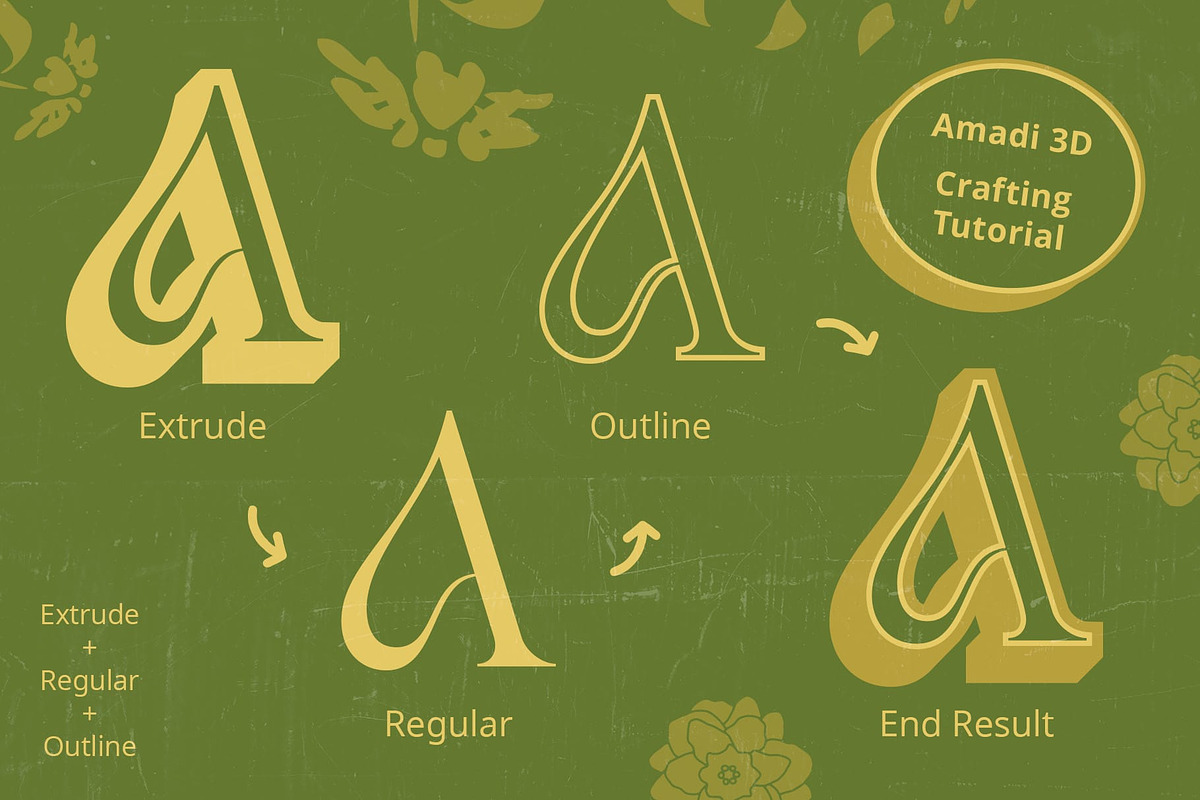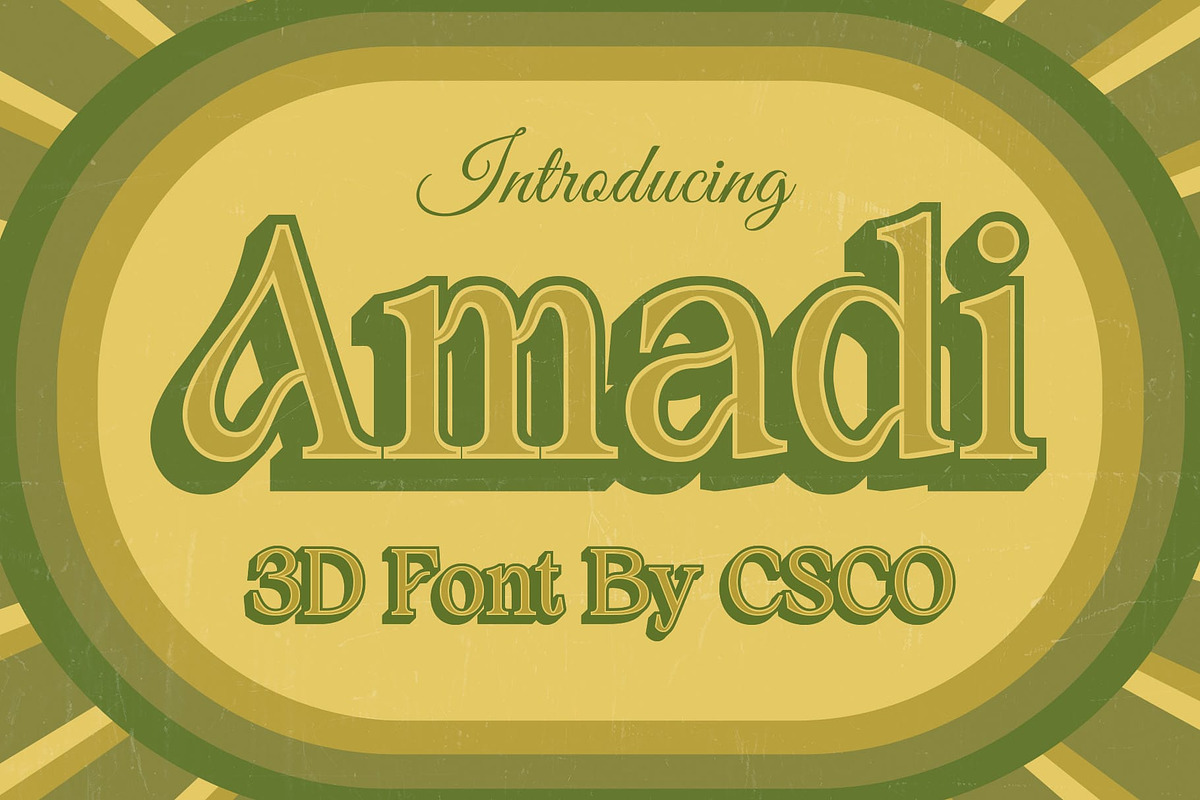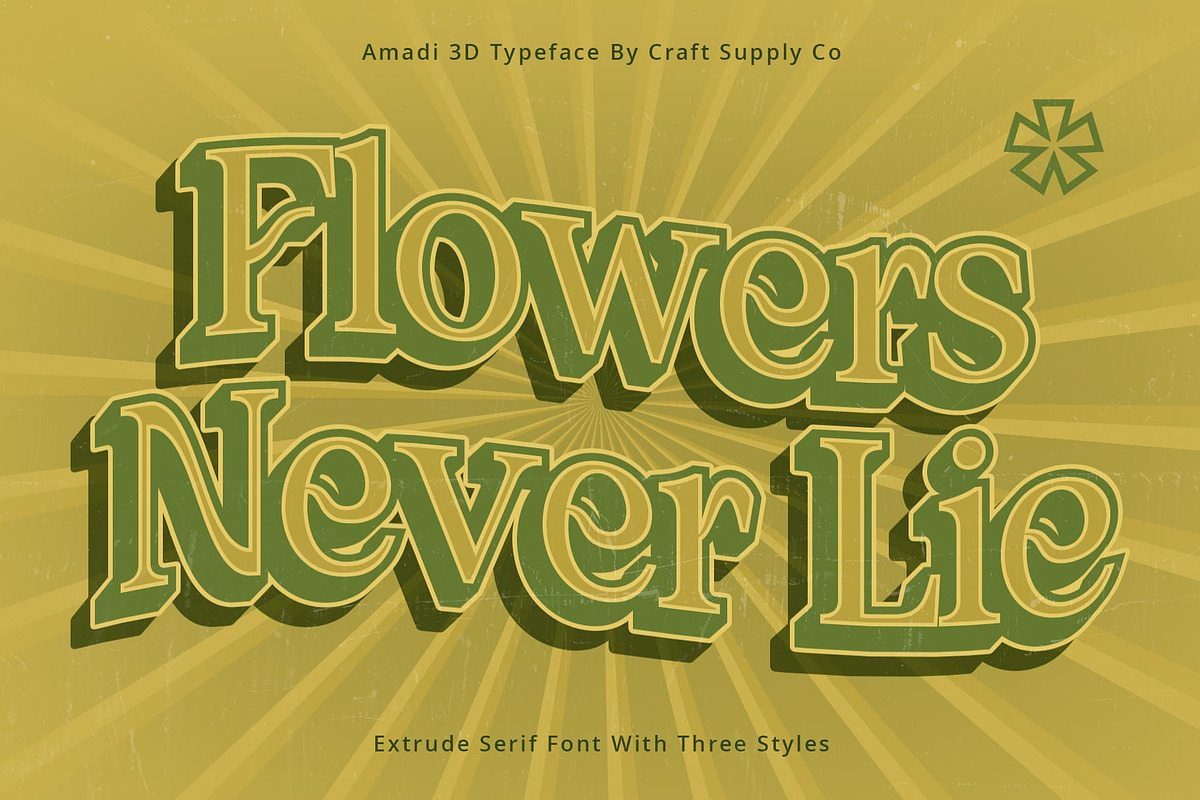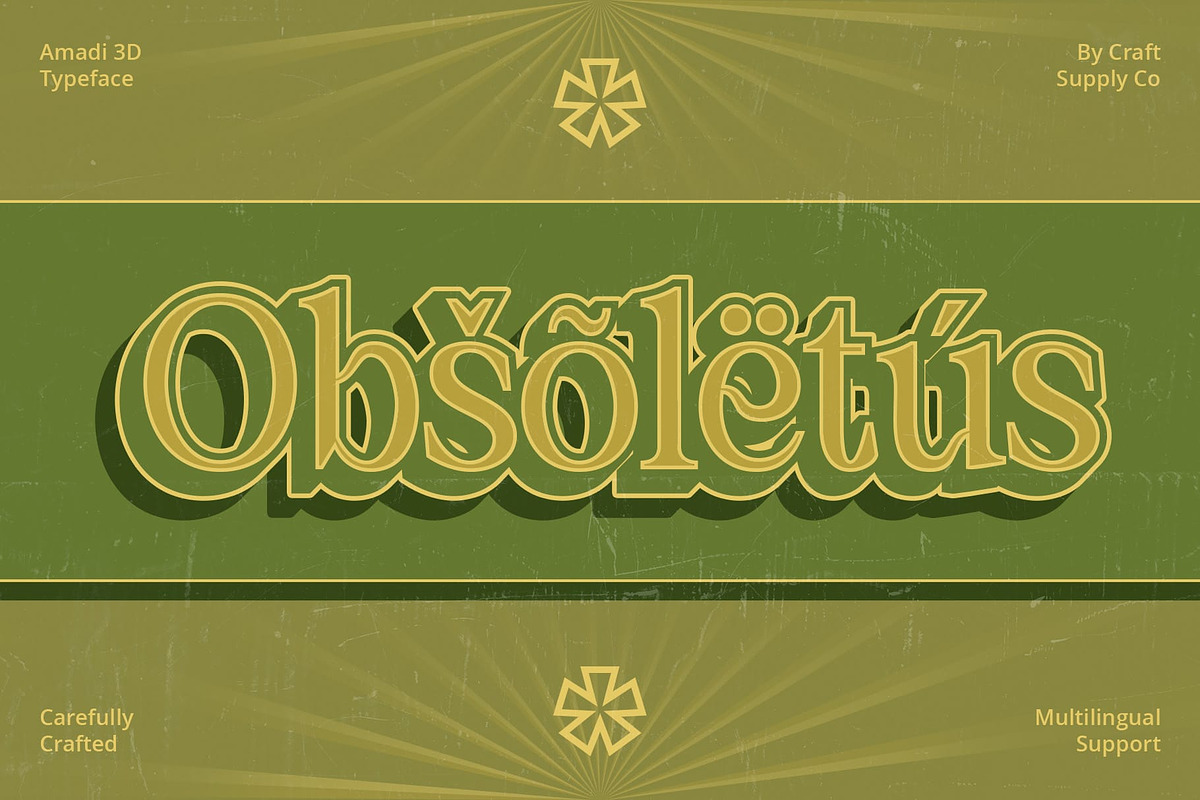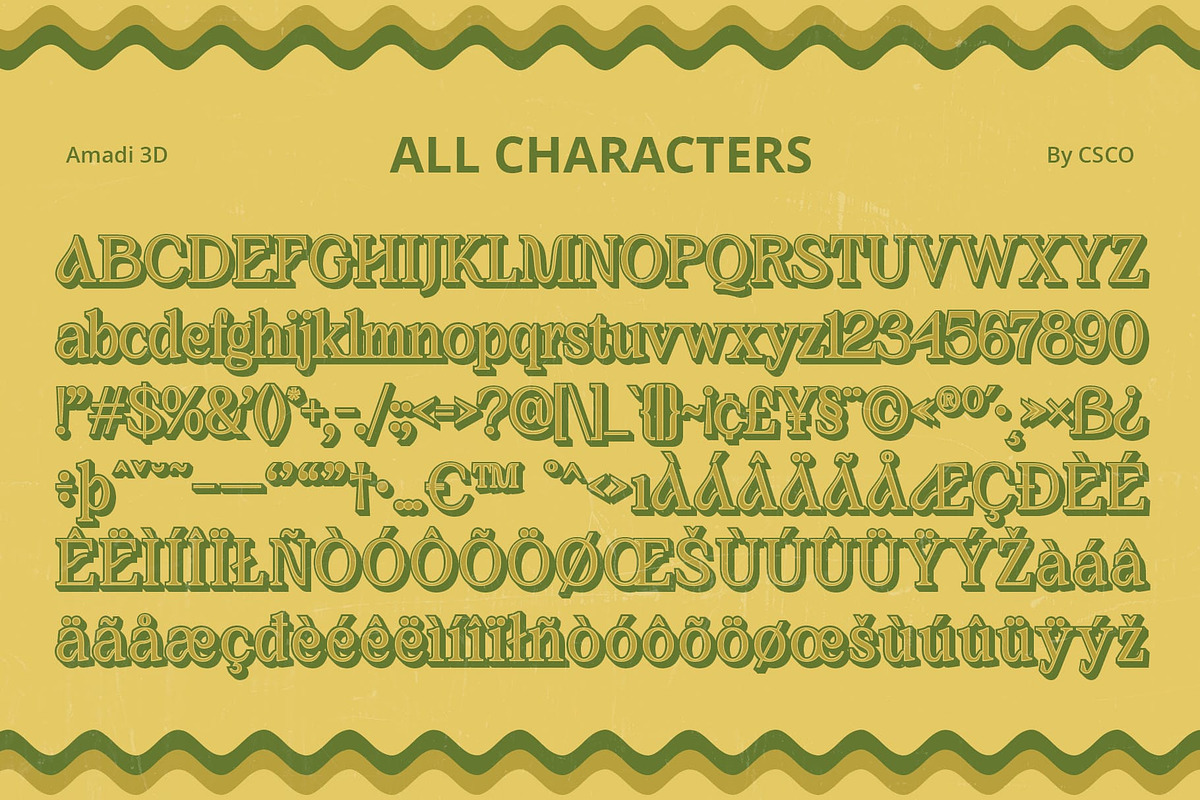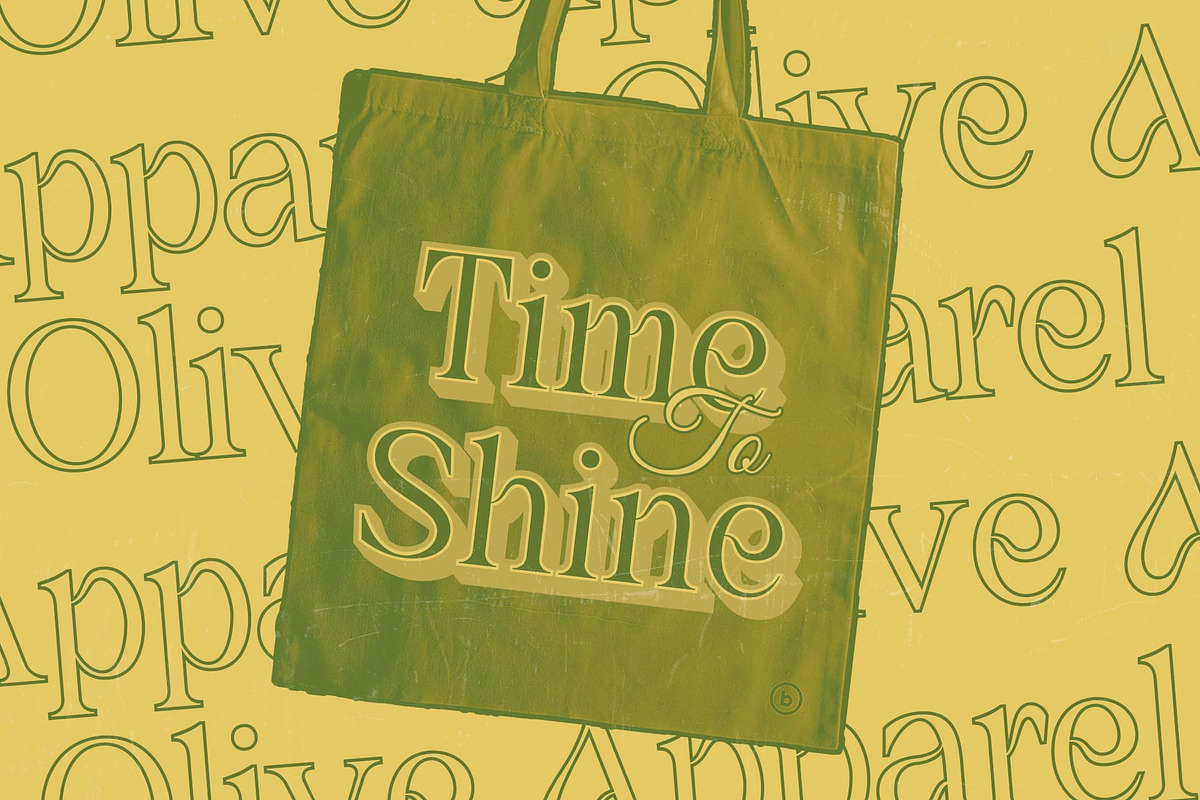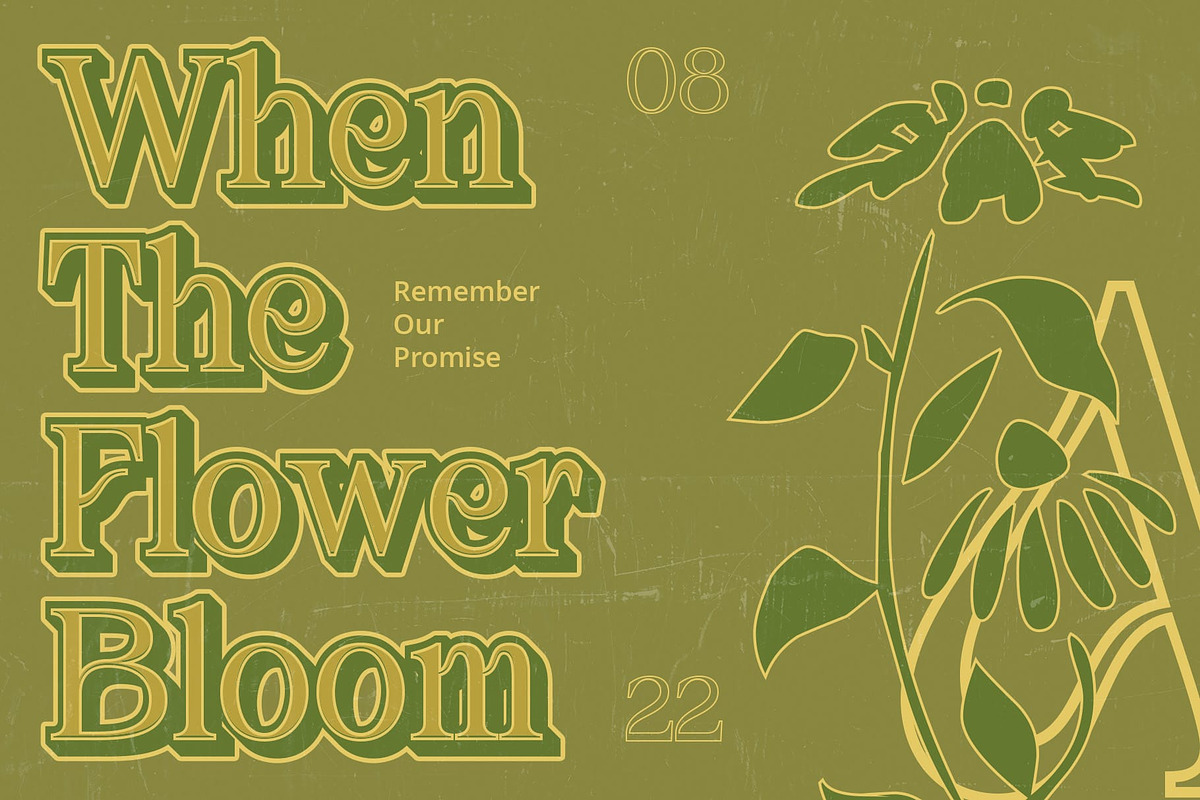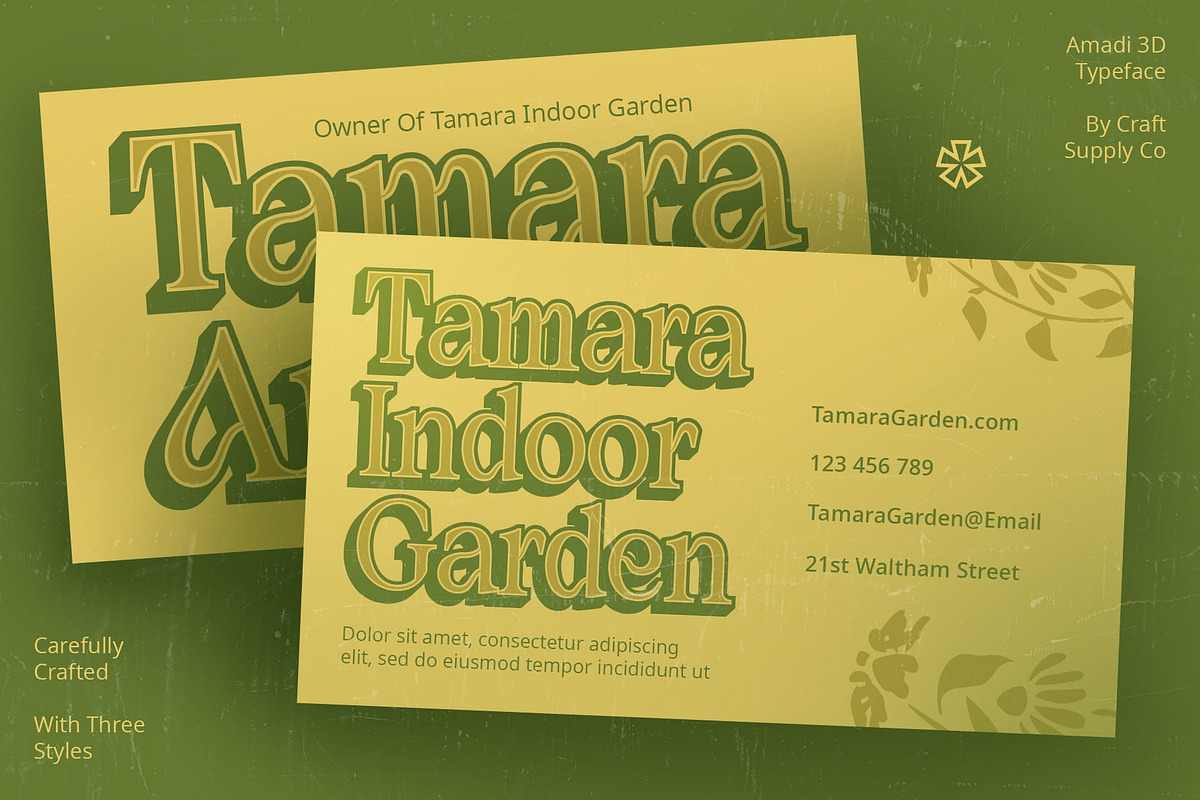
Amadi 3D
Amadi 3D: Redefining Display Typography
Dynamic 3D Serif Design Amadi 3D presents a striking display font featuring serif elements infused with captivating 3D effects. Its dynamic design adds depth and dimension to any visual composition.
Tailored for Display Purposes Crafted specifically for display applications, This font excels in capturing attention and delivering messages with impact. Its bold presence and three-dimensional appearance ensure optimal visibility and engagement.
Versatile Application Possibilities From digital banners to print advertisements, This font offers versatility in application. Whether used in branding, signage, or editorial design, its unique combination of serif aesthetics and 3D effects elevates the visual appeal of any project.
Seamless Integration Despite its intricate detailing and dimensional features, This font seamlessly integrates into various design contexts. Its clarity and legibility remain uncompromised, ensuring effective communication across different platforms.
Bold Statement in Display Typography This font emerges as a bold and versatile choice for display typography. With its fusion of serif sophistication and 3D allure, it brings a fresh perspective to visual communication, making every message stand out with style and impact.
- Amadi Regular
- Amadi Outline
- Amadi Extrude Right
- Amadi Extrude Left